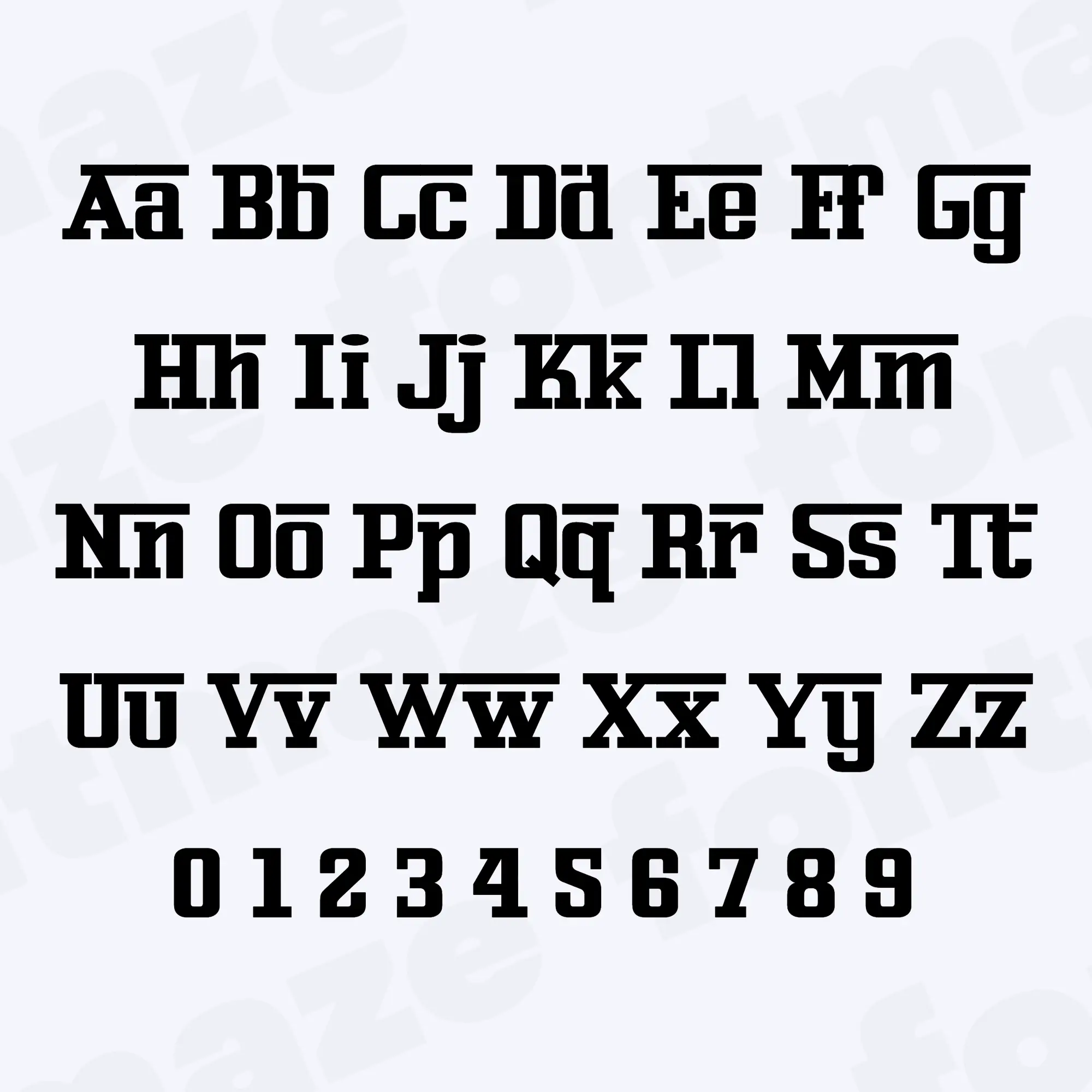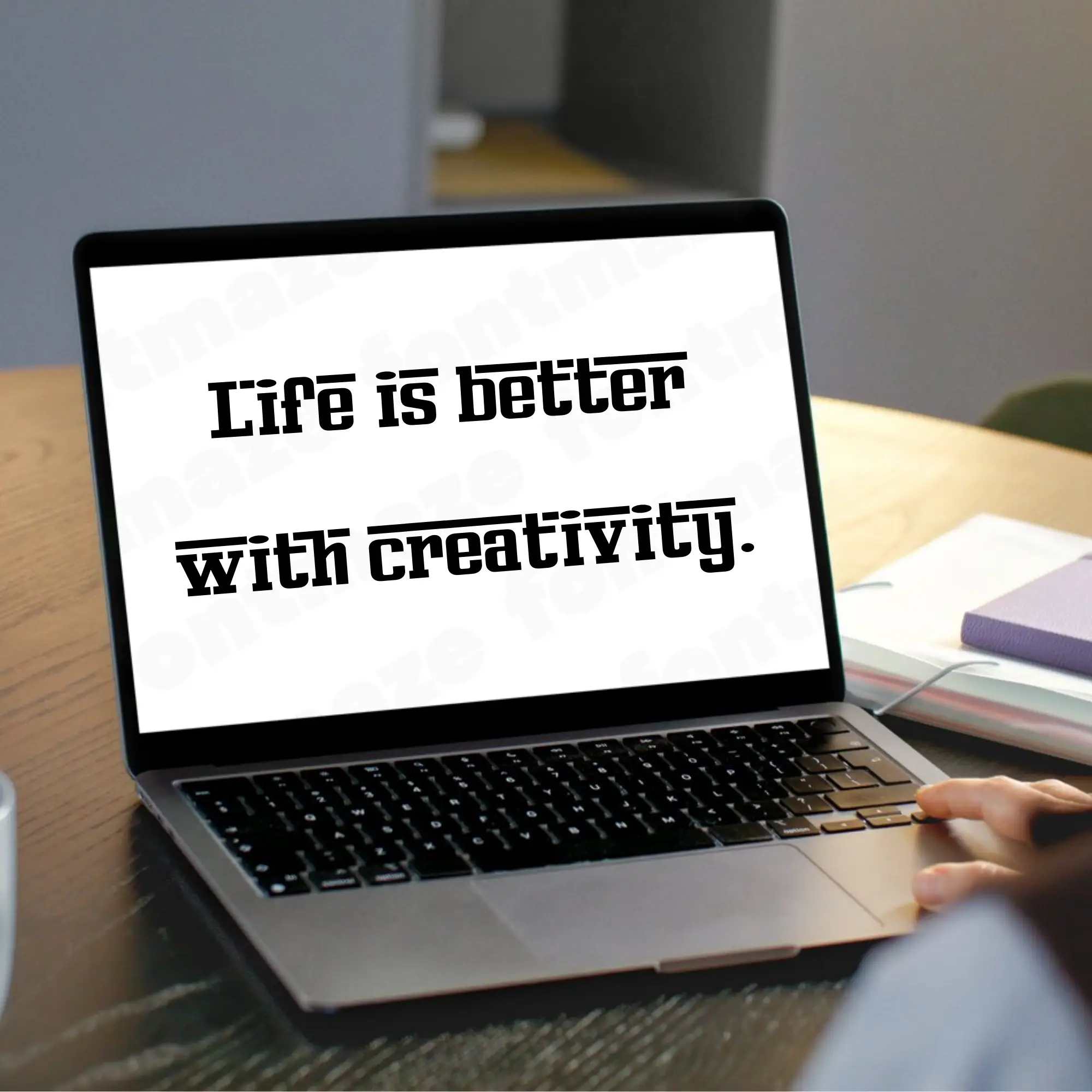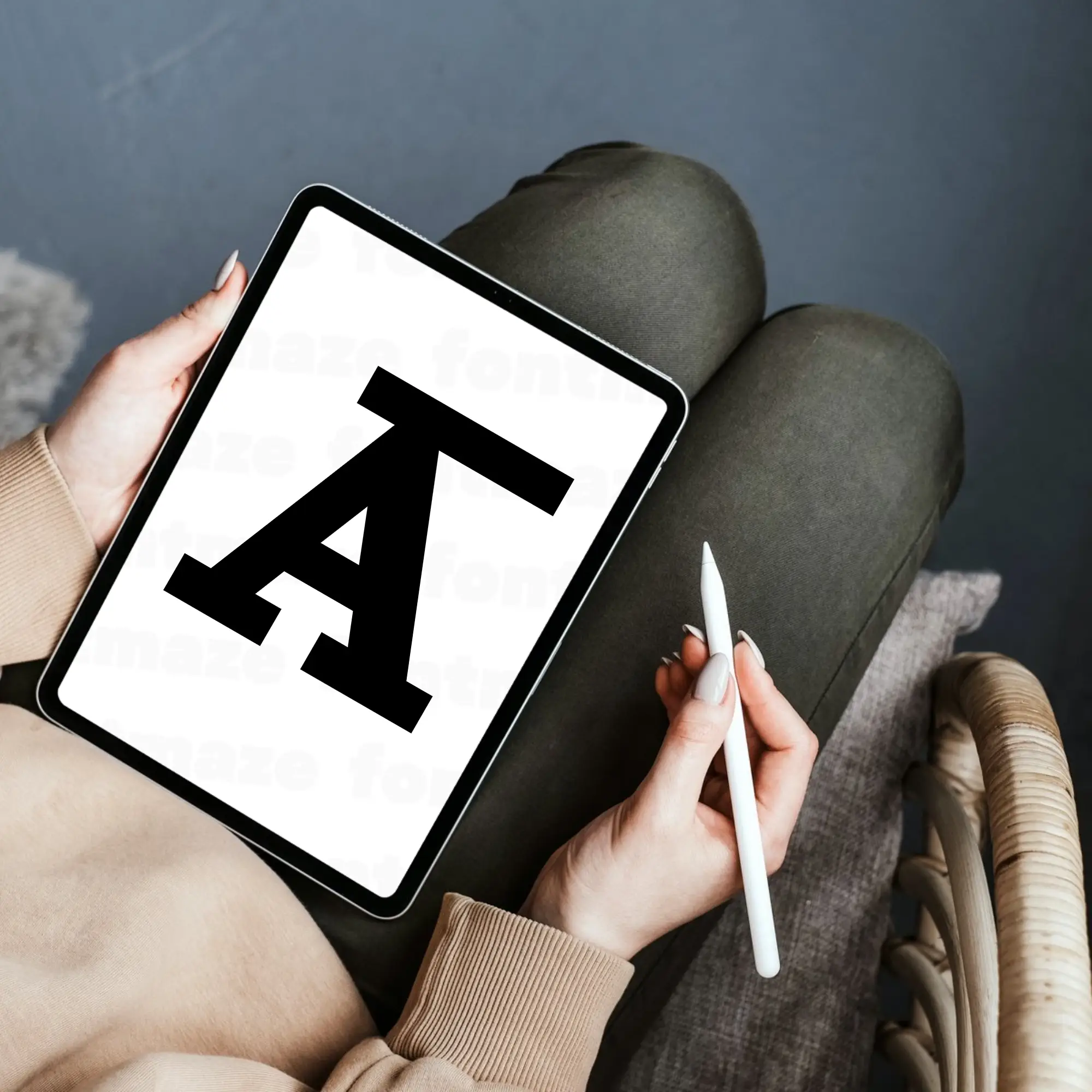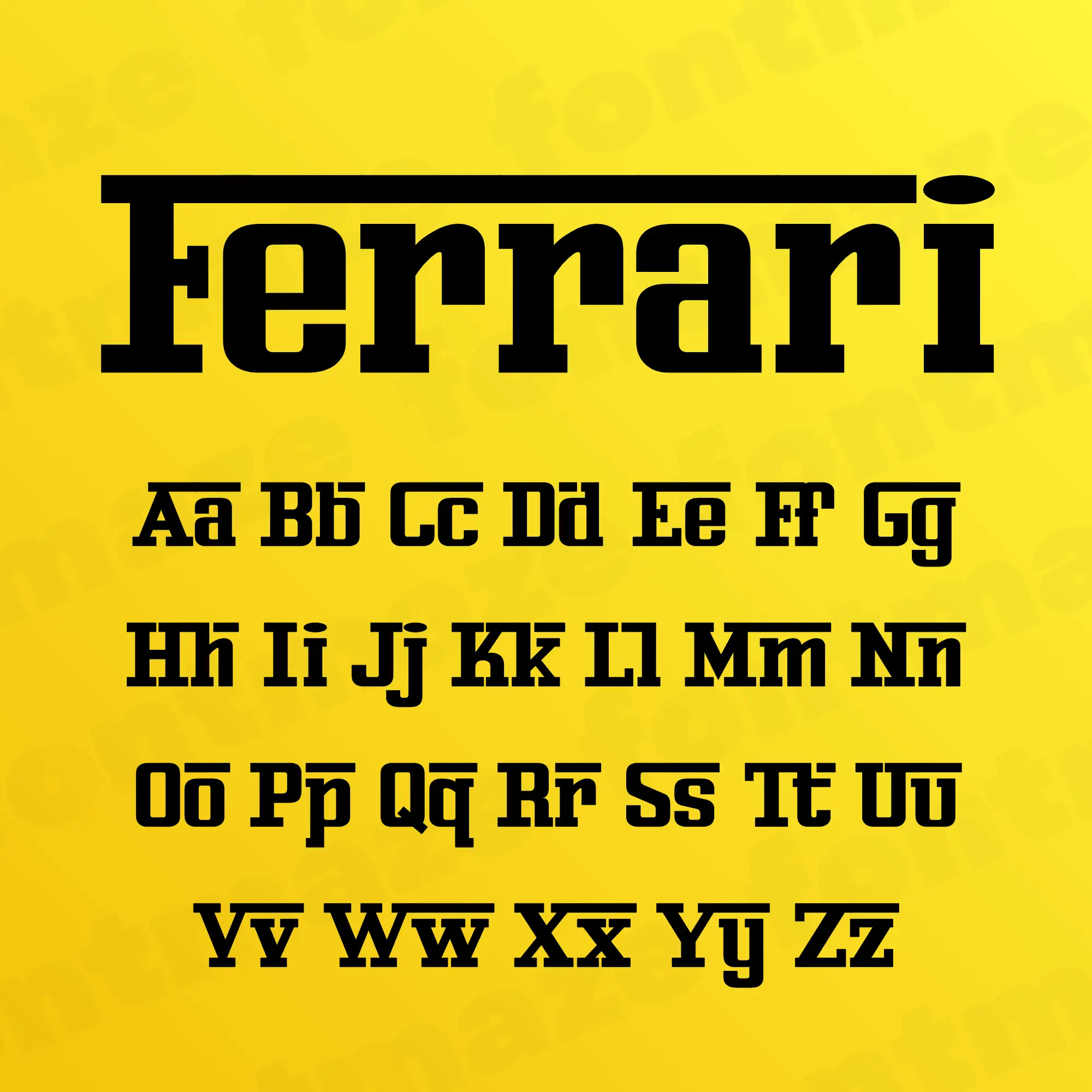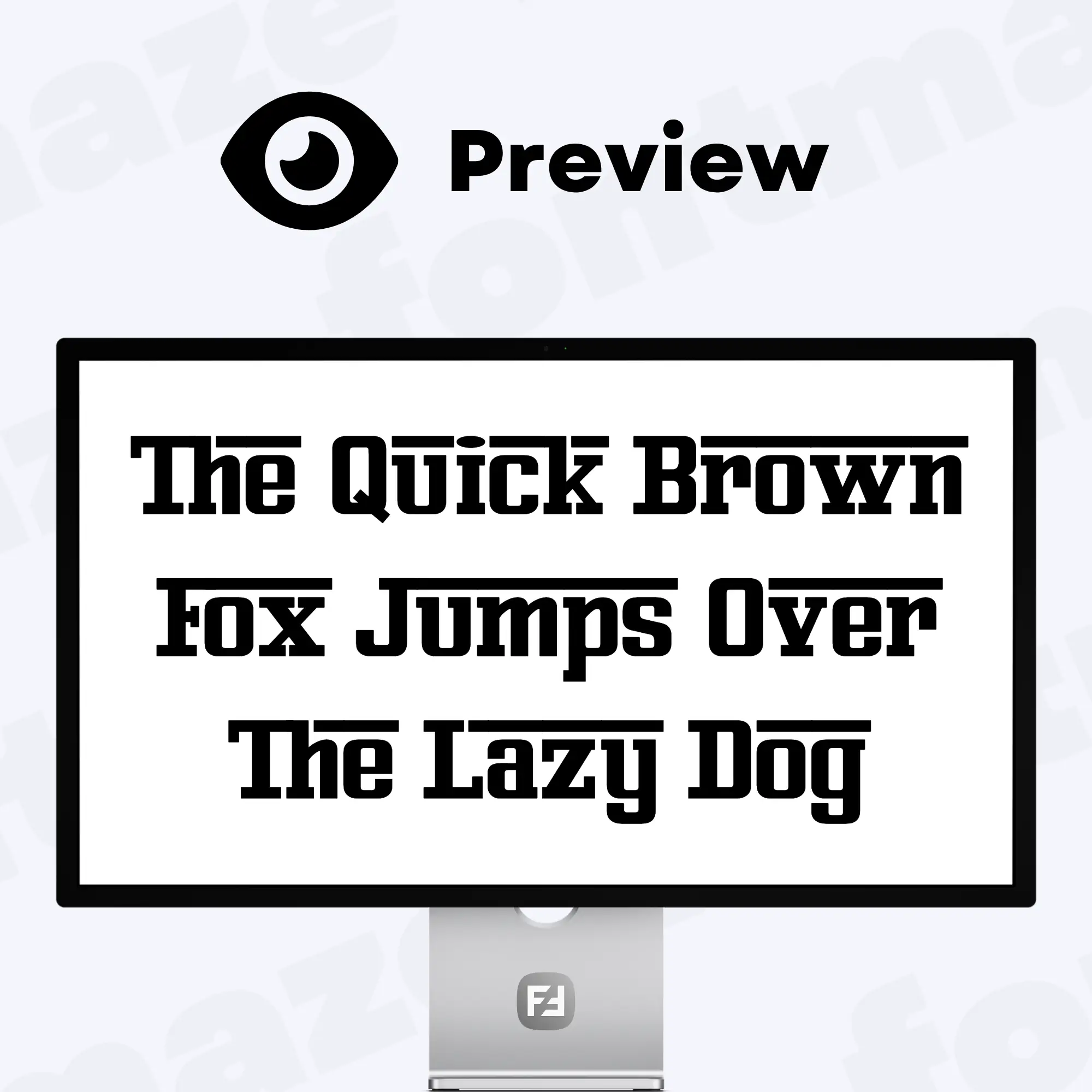
Our Ferrari Font, a Sports Car Style Typeface
Make your next project stand out with our Ferrari font – a flexible and stylish typeface made for creators.
Handcrafted in our studio with care and attention to detail, the Ferrari font brings a unique, personal touch to your designs.
Start designing instantly with the Ferrari font – perfect for social media graphics, printable crafts, digital downloads, and creative projects of all kinds.
The Ferrari font was independently created by FontMaze.
Ferrari Font